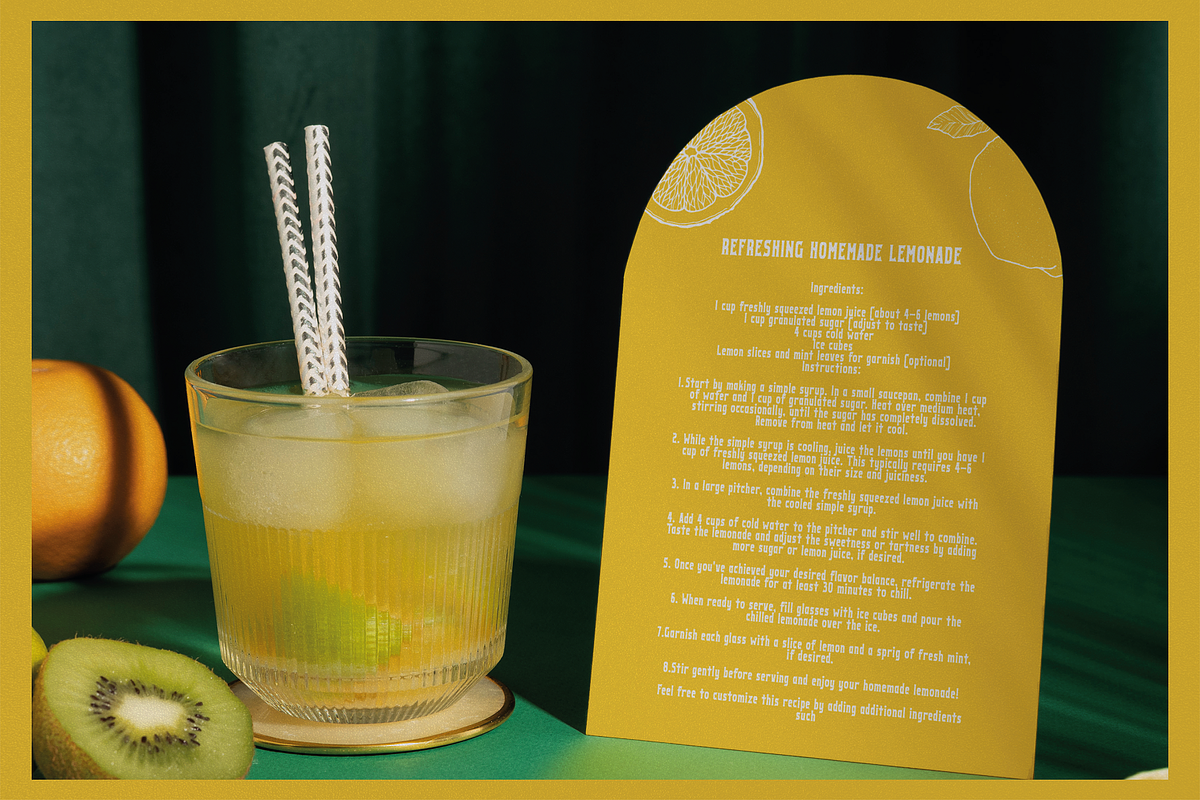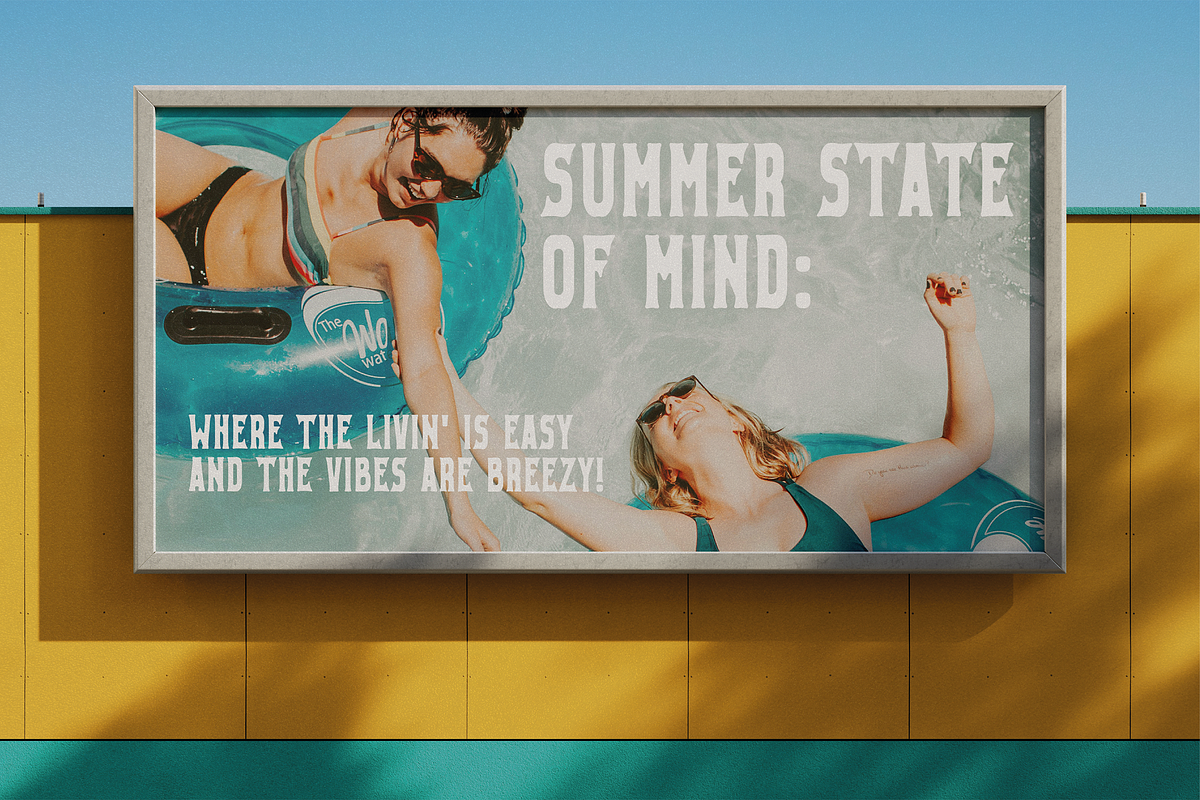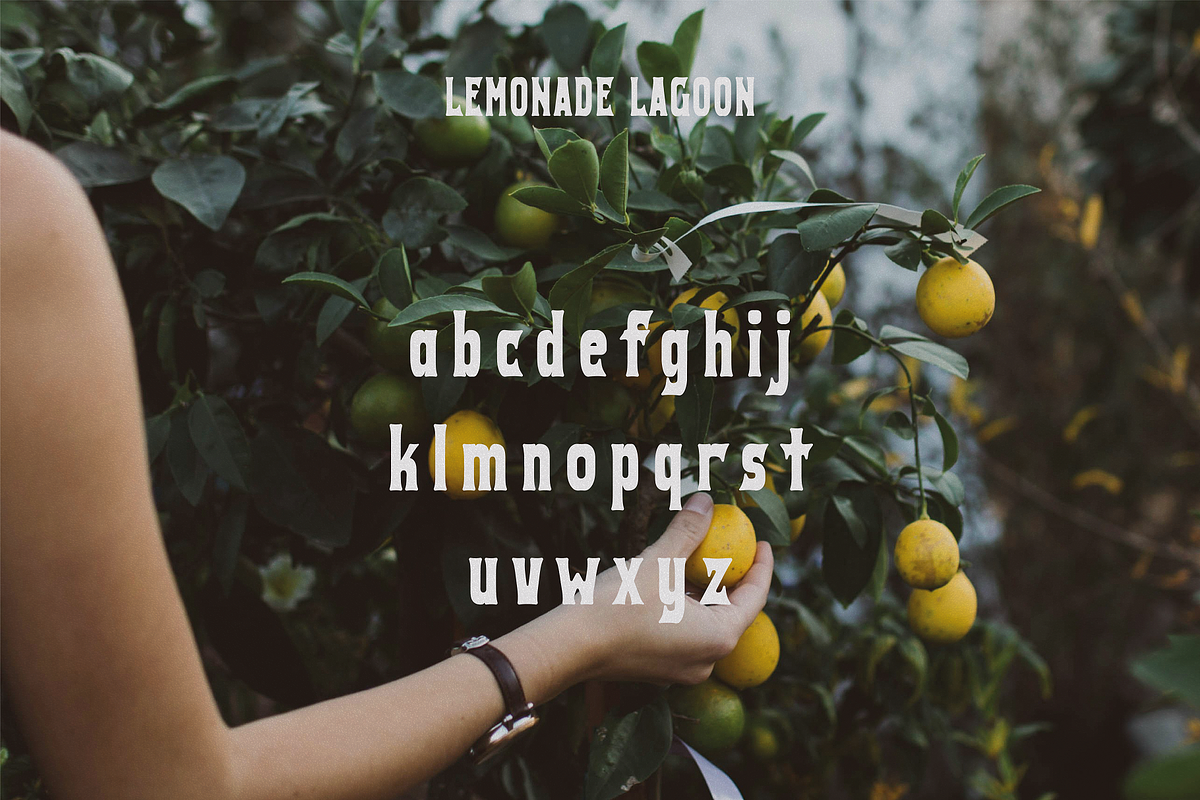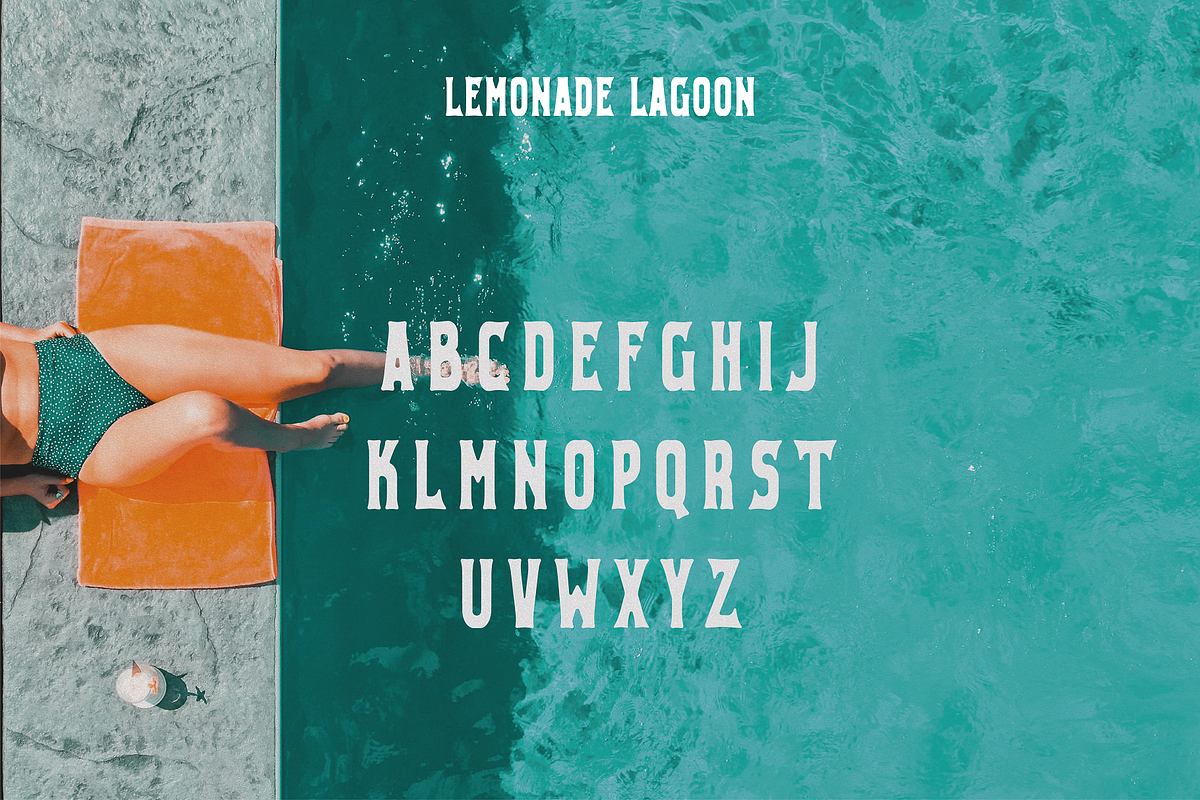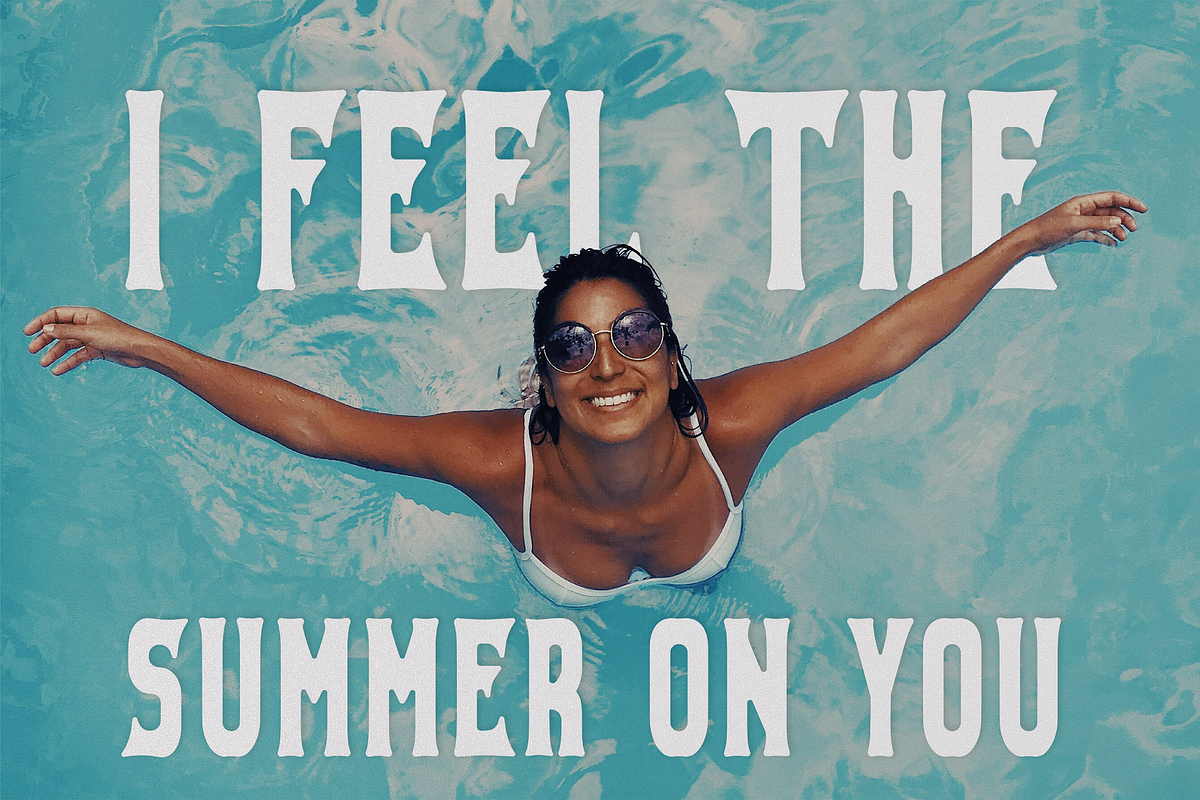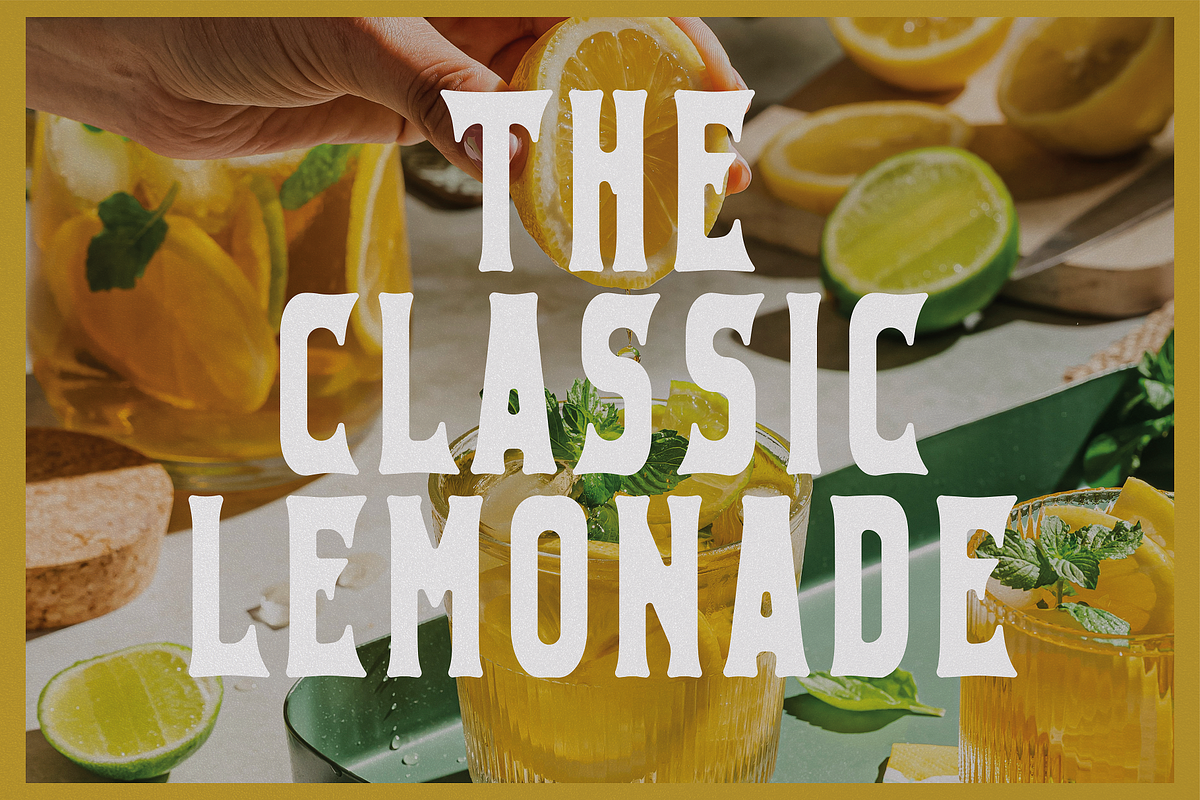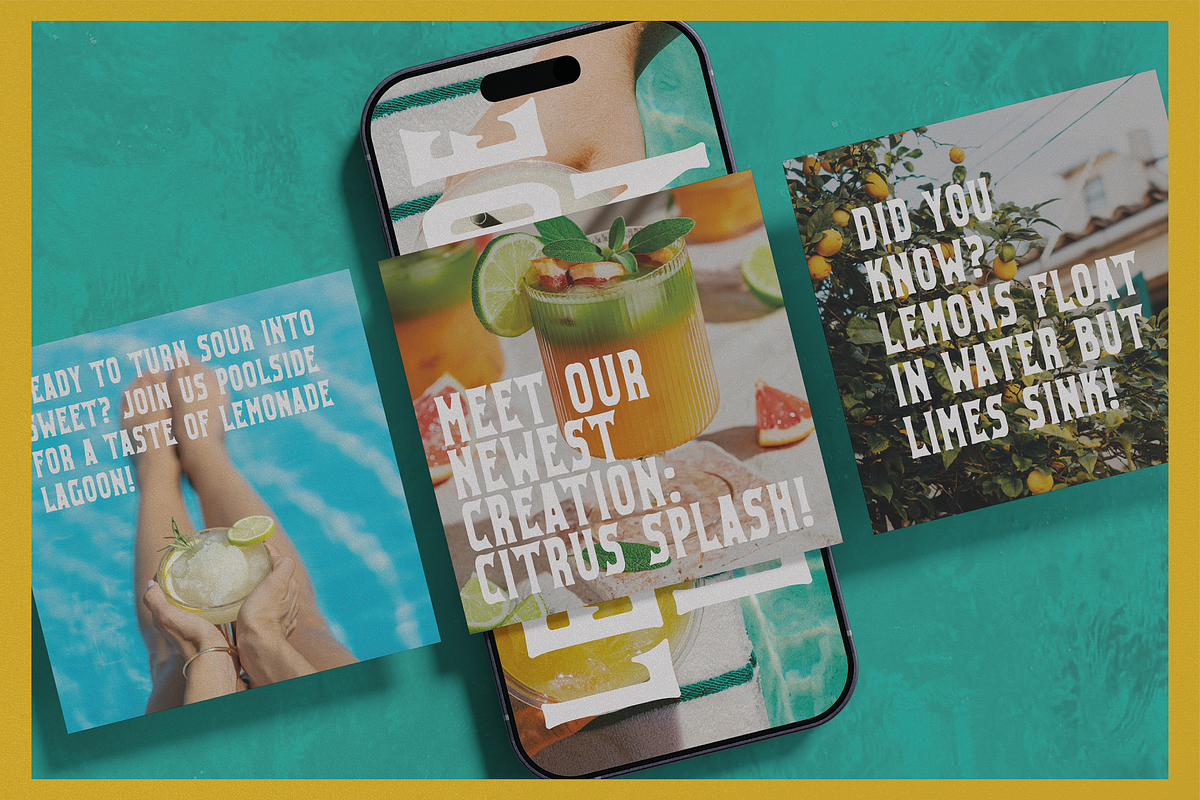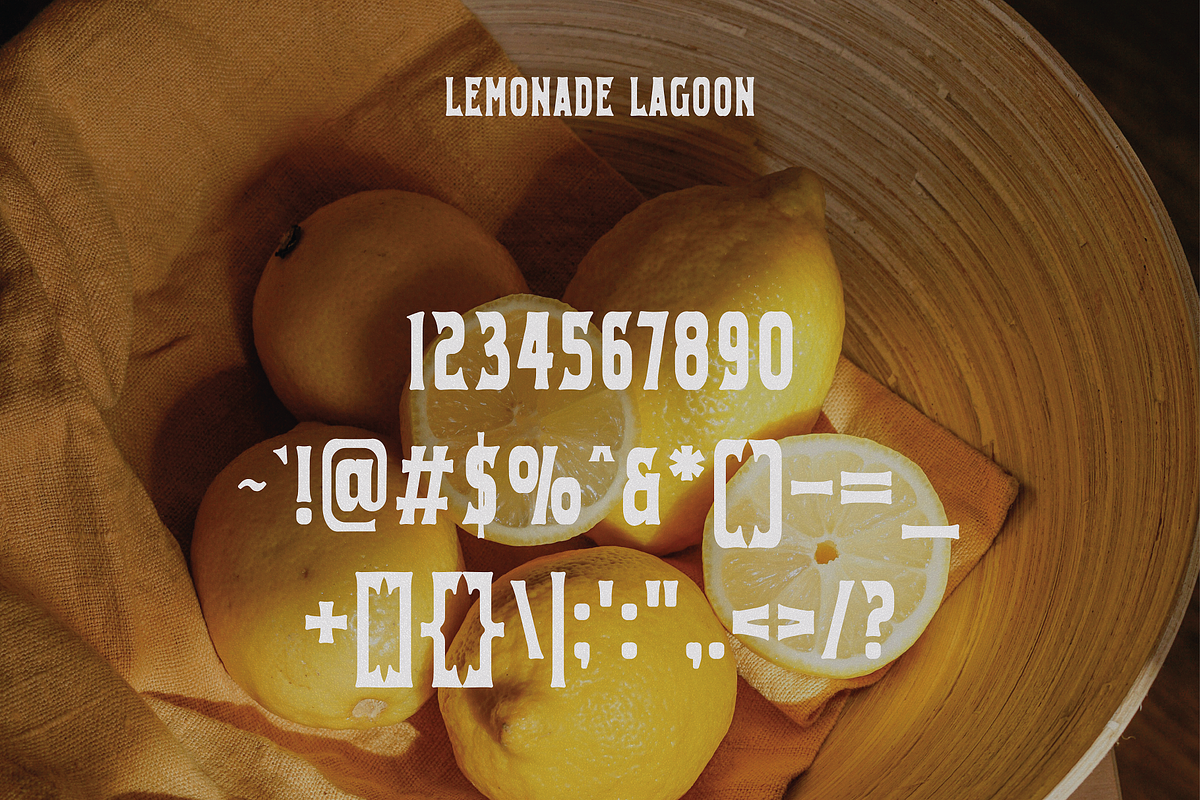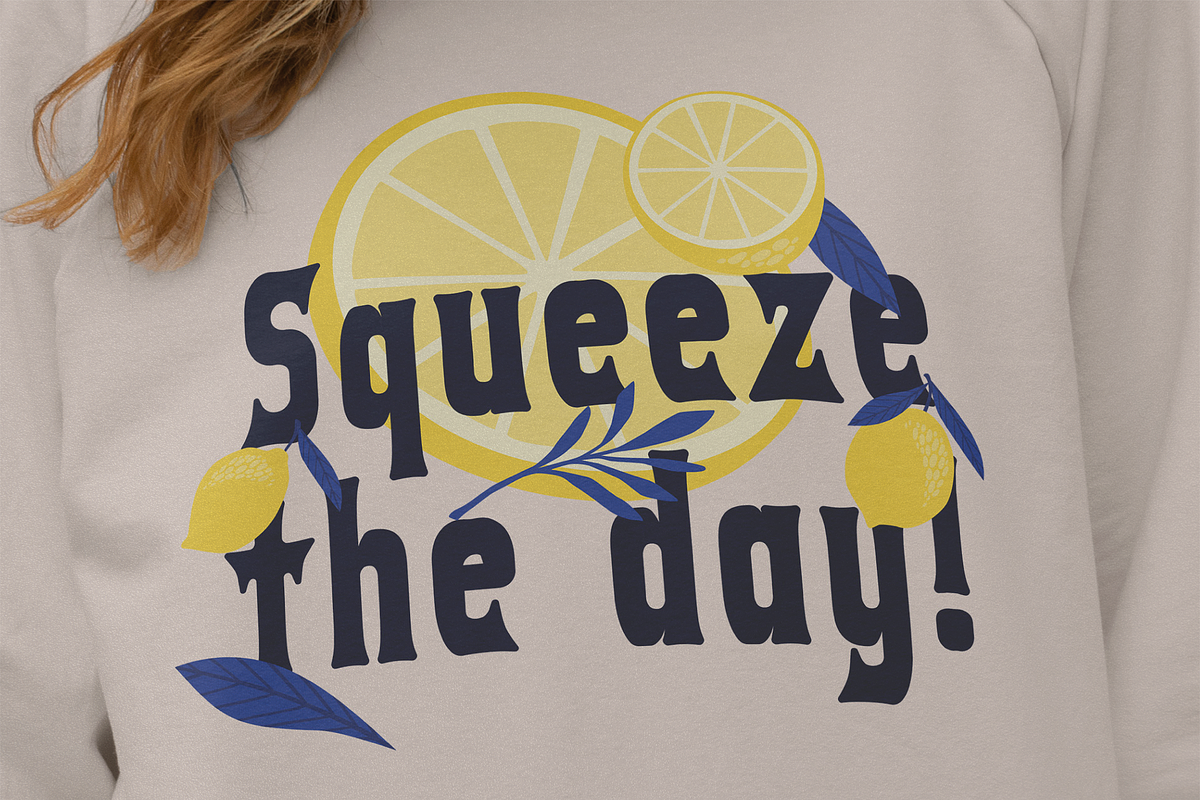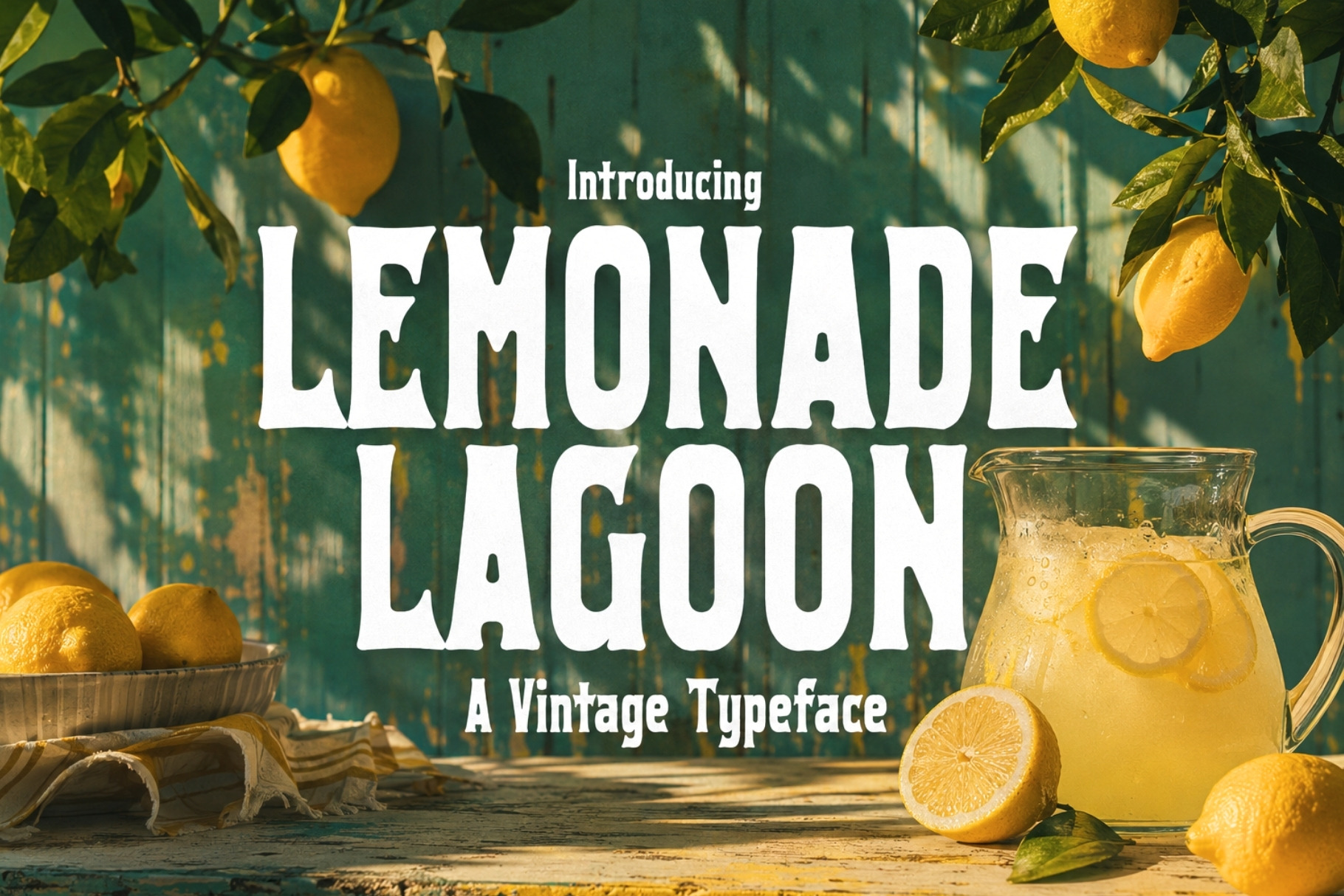
Lemonade Lagoon - Vintage Typeface
Sip on the nostalgia of sunny days gone by with Lemonade Lagoon, a vintage typeface that evokes the timeless charm of old-fashioned signage and classic print design. With its sturdy characters and clean lines, Lemonade Lagoon is a refreshing blend of retro vibe and modern clarity.
This font's bold and friendly letters are perfect for creating standout headers, logos, and posters that demand attention while warming the heart. Each letterform in Lemonade Lagoon has been carefully crafted to capture the essence of an era when design was as much about personality as it was about message.
Lemonade Lagoon is more than just a font; it's a narrative of summer fairs, homemade lemonade stands, and the laid-back feel of the good old days. It’s suitable for branding projects that need a touch of whimsy, for packaging that requires an authentic retro feel, or for any project that calls for a splash of vintage warmth.
With Lemonade Lagoon, your designs will convey a story of simplicity, joy, and nostalgia. Let your creative juices flow and give your projects a taste of the sweet, citrusy zest that is Lemonade Lagoon - the typeface that adds a slice of the past into every word.